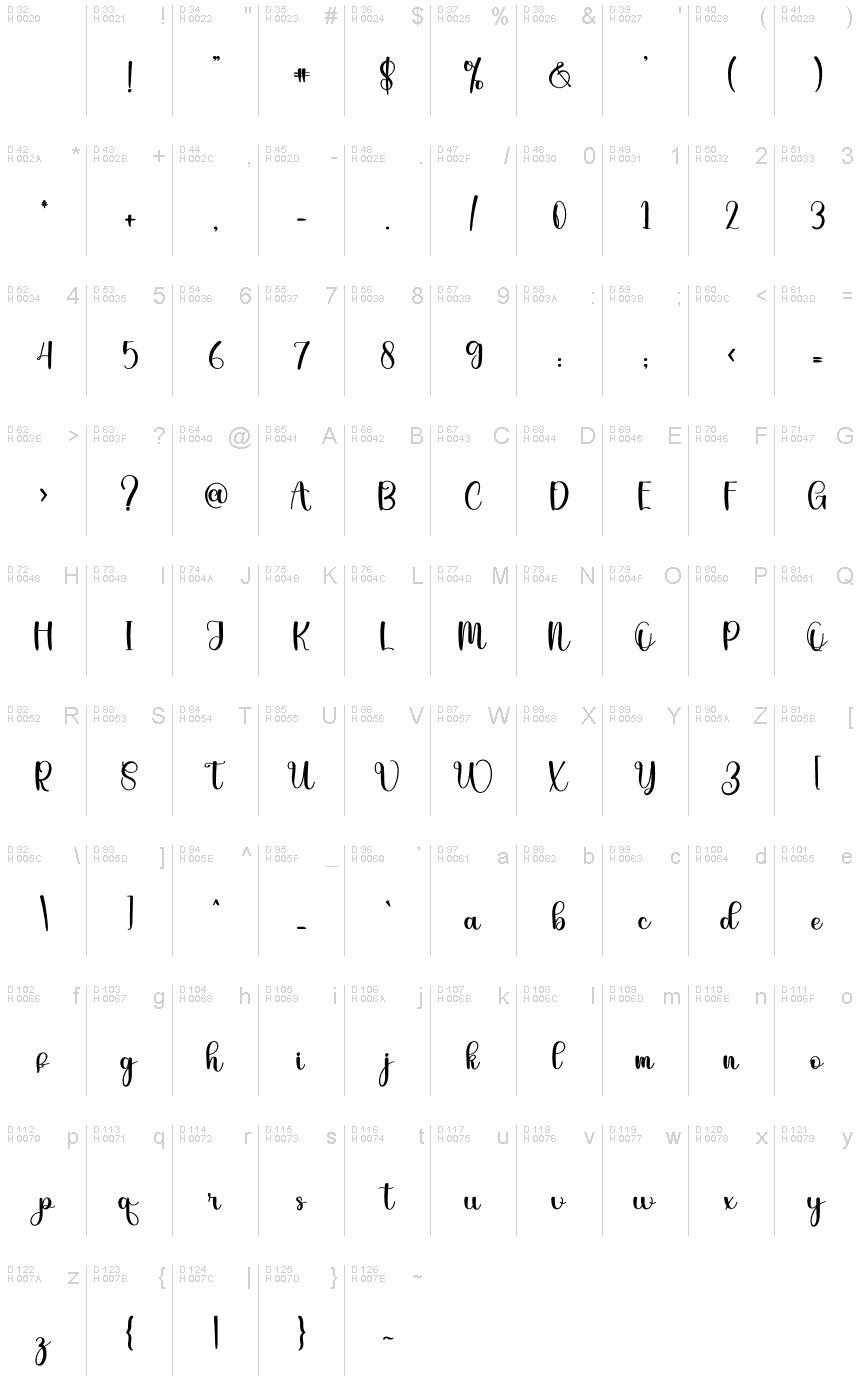
Weekly
Weekly, a semi-light calligraphy font created by Inermedia Studio, adds an elegant touch to any project. With its graceful strokes and delicate curves, this font brings a sense of sophistication and refinement. Perfect for wedding invitations, luxury branding, and editorial designs, Weekly exudes charm and beauty. Its versatility also makes it suitable for greeting cards, book covers, and fashion magazines. Let your creativity flow as you explore the enchanting possibilities that Weekly offers. Elevate your designs with this captivating semi-light calligraphy font that is sure to leave a lasting impression.